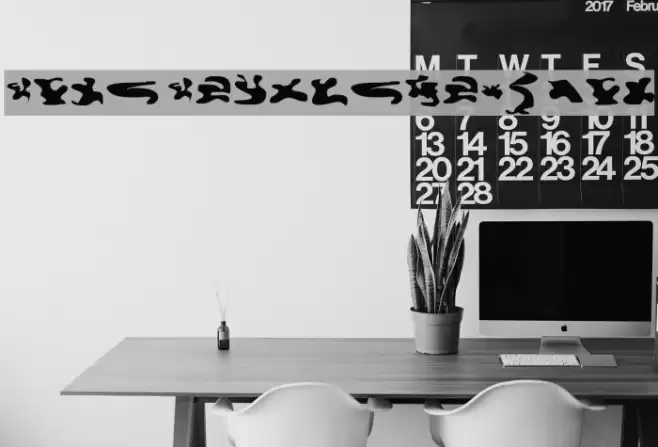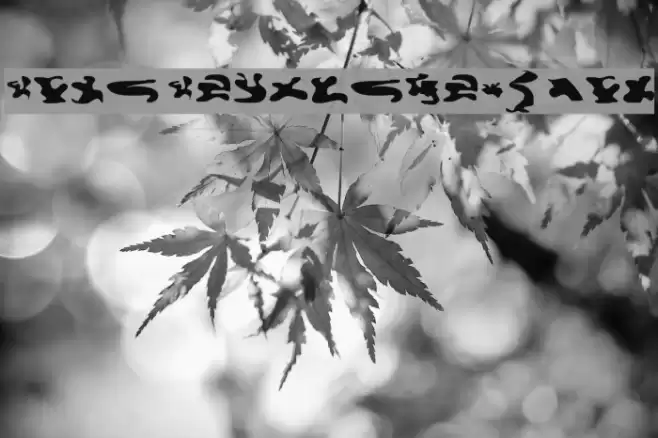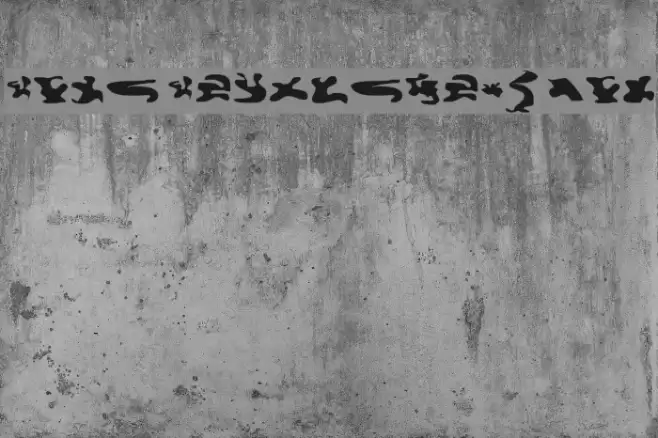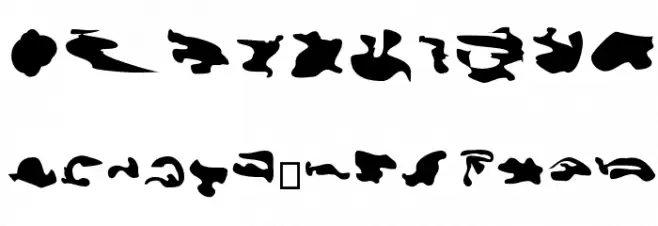
CISF Camouflage Kit Font
CISF Camouflage Kit Description
This font features an abstract and highly stylized design, with characters that resemble organic shapes and camouflage patterns. The letters are bold and irregular, creating a sense of movement and fluidity. Each character is unique, with varying thicknesses and curves, giving the font a dynamic and artistic appearance. The overall look is unconventional and artistic, making it suitable for creative and experimental projects. The font's distinct style makes it stand out, but it may not be suitable for readability in large blocks of text.
An abstract, bold font with organic, camouflage-like shapes from Dingbats fonts.
- Proposed Projects: Ideal for artistic projects, experimental designs, and creative branding where a unique and eye-catching style is desired.
- Use Case: Logos, Artistic projects, Experimental designs